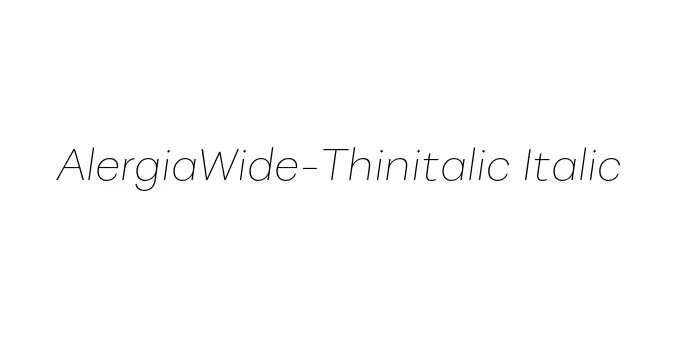
AlergiaWide-Thinitalic Italic
Designed by Mateusz Machalski
The Alergia Wide font family is a sophisticated hybrid sans-serif typeface designed by the renowned Polish designer Mateusz Machalski. It represents a unique blend of geometric structures with a touch of humanist elegance, making it a highly versatile choice for modern design projects. The 'Wide' version of this family emphasizes horizontal expansion, creating an open, airy, and luxurious aesthetic that stands out in contemporary visual communication.
Specifically, the Thin Italic style of Alergia Wide offers a delicate and graceful slant that exudes precision and high-fashion sensibility. Its extremely thin stroke weights are best appreciated at large sizes, where the subtle nuances of the character shapes can be fully realized. This font is a favorite for designers seeking to combine technical accuracy with a distinct, artistic personality for high-end editorial and digital platforms.
AlergiaWide-Thinitalic Italic Best Uses
Perfect for high-end magazine headings, lifestyle layouts, and fashion spreads.
Excellent for creating clean, futuristic, and minimalist corporate identities.
Ideally suited for hero sections and large-scale artistic website titles.
Great for sophisticated digital and print advertisements that require a light, airy feel.